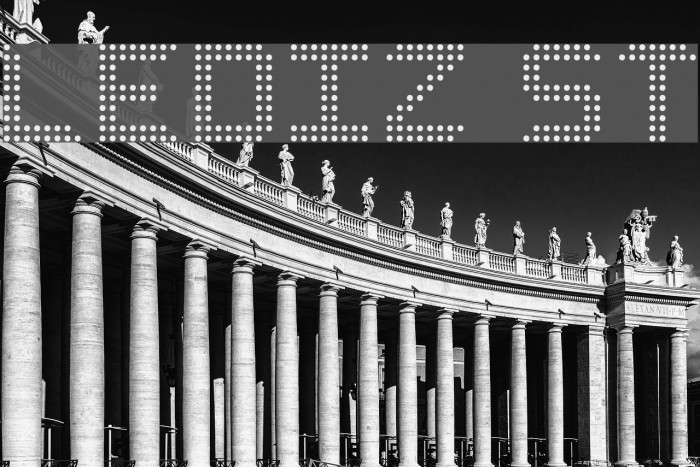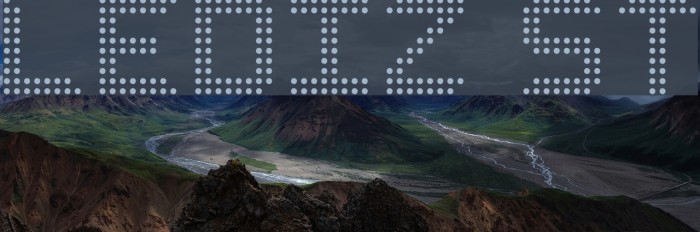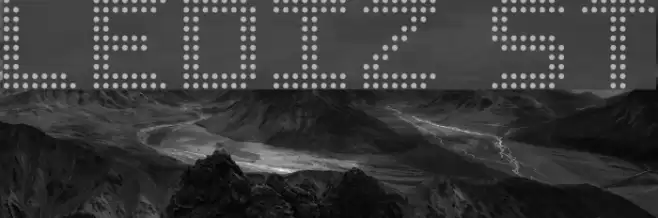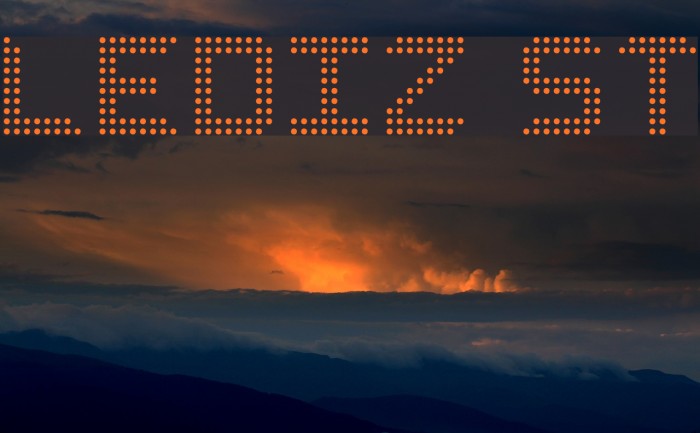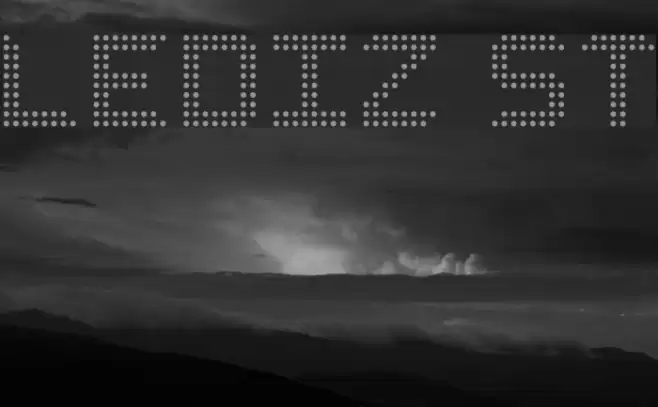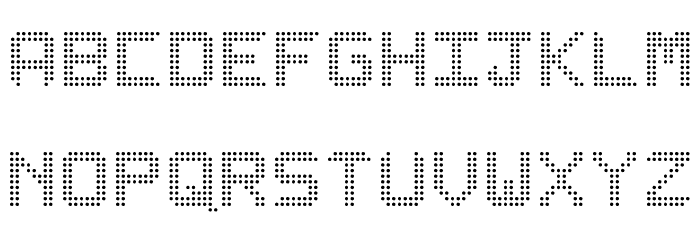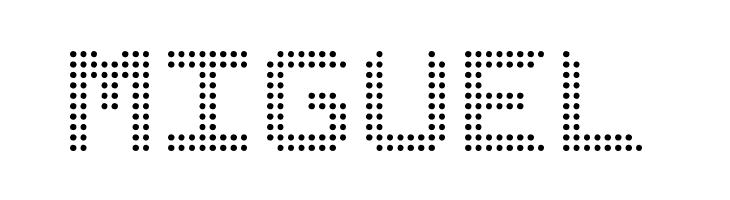
LediZ St Font
LediZ St Description
This font features a unique dot matrix style, where each character is composed of small, evenly spaced dots forming the outlines of letters and numbers. The design is reminiscent of digital displays or LED screens, giving it a modern and technological feel. The uppercase and lowercase letters maintain a consistent height and width, ensuring uniformity across the text. The numbers and special characters follow the same dot pattern, providing a cohesive look. This font is particularly suitable for projects that require a digital or futuristic aesthetic.
| Use Case | Headlines, Logos, Digital displays |
| Proposed Projects | Ideal for digital displays, tech-themed designs, modern posters, and electronic device interfaces. |